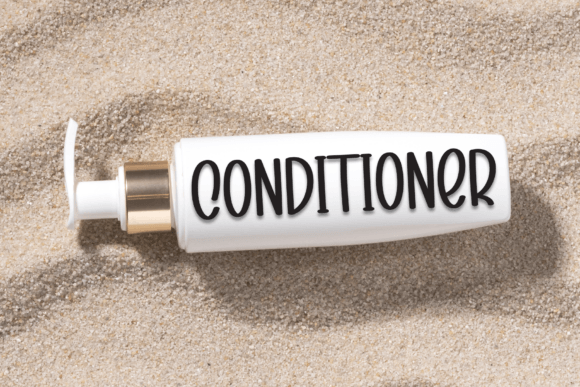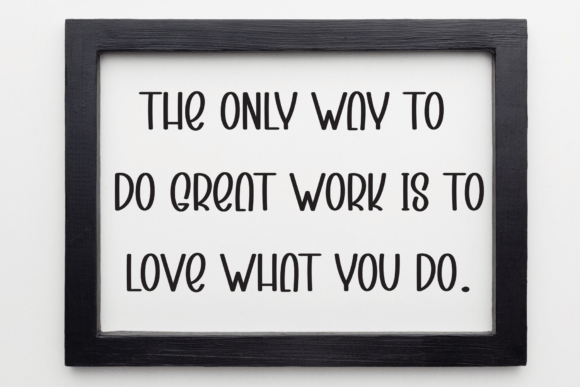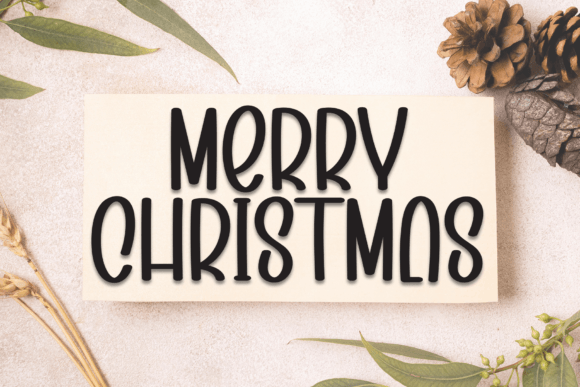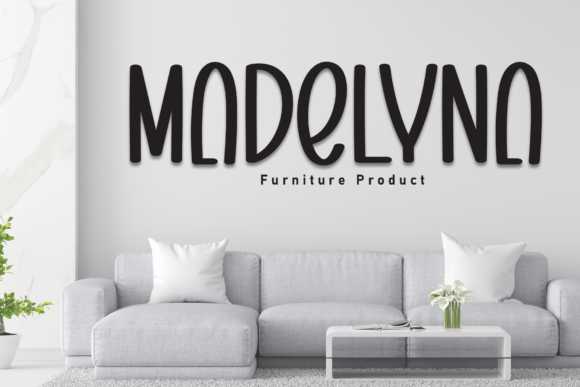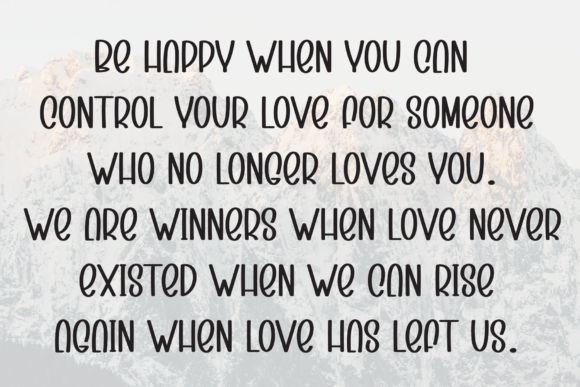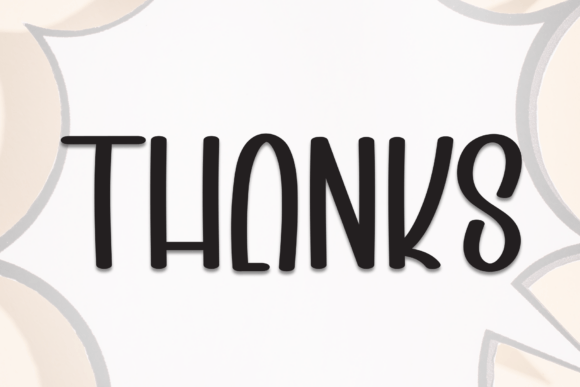
Introduction to Simple Comic Font
Remember that moment when you finally find the perfect font for your creative project? It’s like the missing piece of a puzzle that makes everything fall into place. For designers, this moment is priceless. It’s what sets a project apart from ordinary to extraordinary. And, that’s exactly what we’re about to dive into – the Simple Comic Font, a sweet and friendly handwritten font that’s sure to bring a smile to your face.
This beautiful font is a design resource that’s waiting to be unleashed. With its natural and unique style, the Simple Comic Font is incredibly versatile and can be used for a wide range of creative projects, from digital art to print materials. And the best part? It’s available for free download, making it an accessible and high-quality addition to any design.
Key Features of Simple Comic Font
- Unique comic-style design: The Simple Comic Font features a unique, comic-style design that adds a creative and playful touch to any project, making it an excellent design resource for comic book enthusiasts and graphic designers.
Honest Review: Simple Comic Font
I recently came across the Simple Comic Font while searching for a design resource to use in a creative project. The font is available for a free download, which is always a plus in my book. Upon closer inspection, I was impressed with the high quality of the font and its transparent background, making it easy to incorporate into any design.
- Perfect for creative projects that require a playful touch
- May not be suitable for professional or formal projects
- Some characters may not be as detailed as others
- Not as customizable as some other fonts
Overall, I’m quite impressed with the Simple Comic Font. It’s a great addition to any design library and is perfect for projects that require a lighthearted touch. While it may have some limitations, I believe the benefits far outweigh the drawbacks.
The Simple Comic Font is ideal for comic strips, children’s books, and other creative projects that require a playful and approachable tone. It’s also great for designing invitations, posters, and social media graphics that need a touch of whimsy and fun.